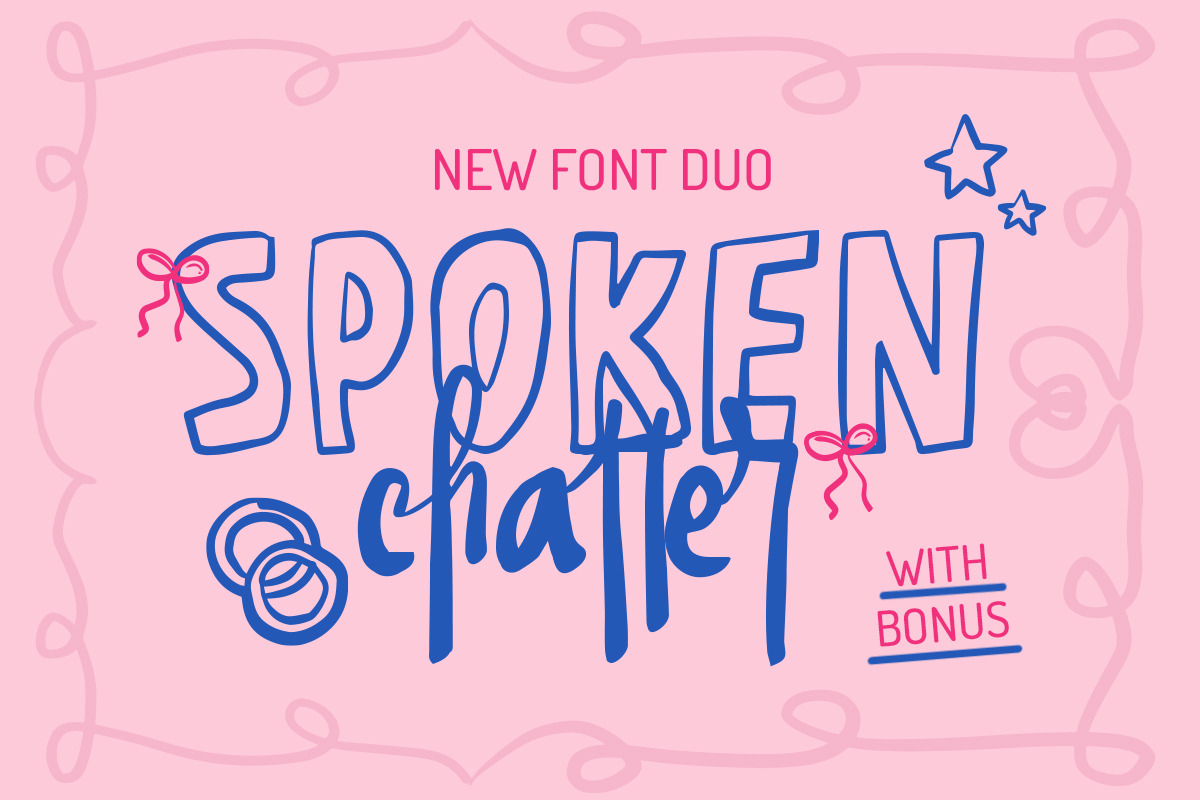
Spoken Chatter Font Duo
Say hello to Spoken Chatter, the imperfect handwritten font duo but so artsy! With its straightforward strokes, Spoken Chatter radiates a warm and approachable vibe. It's perfect for various design needs, offering a artsy and charming touch to your projects. Don't miss out on this delightful, lovely and adaptable font!